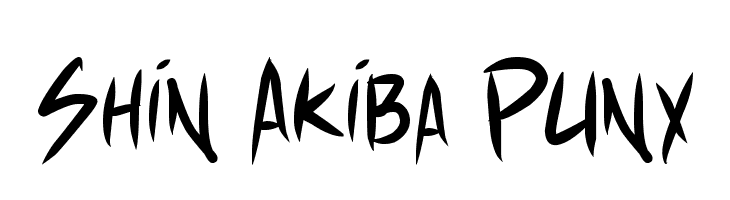
A bold, energetic handwritten font with a rebellious edge.
A bold, italic, brush-style font with dynamic strokes.
A bold, hand-drawn font with an energetic, graffiti-inspired style.